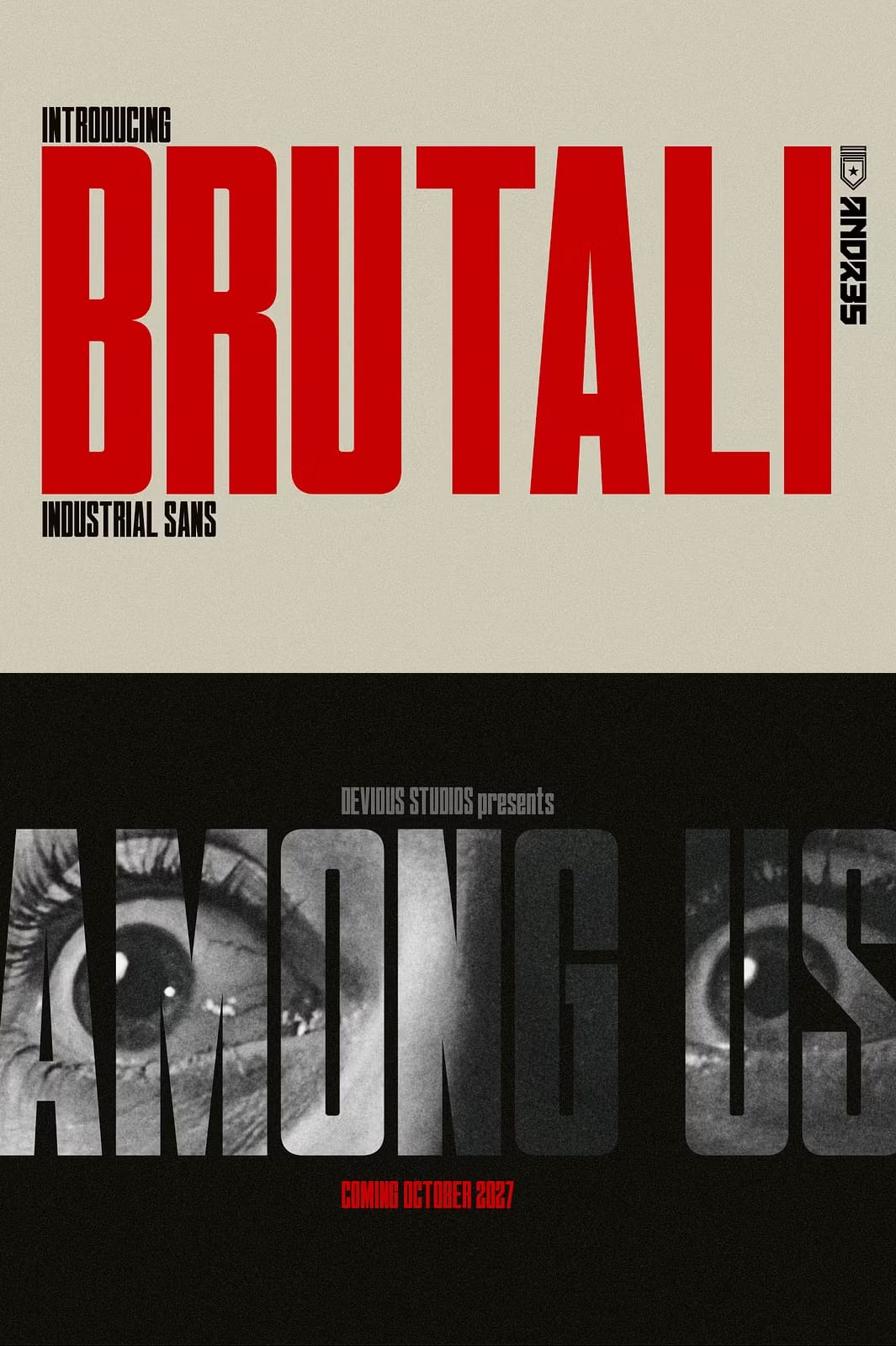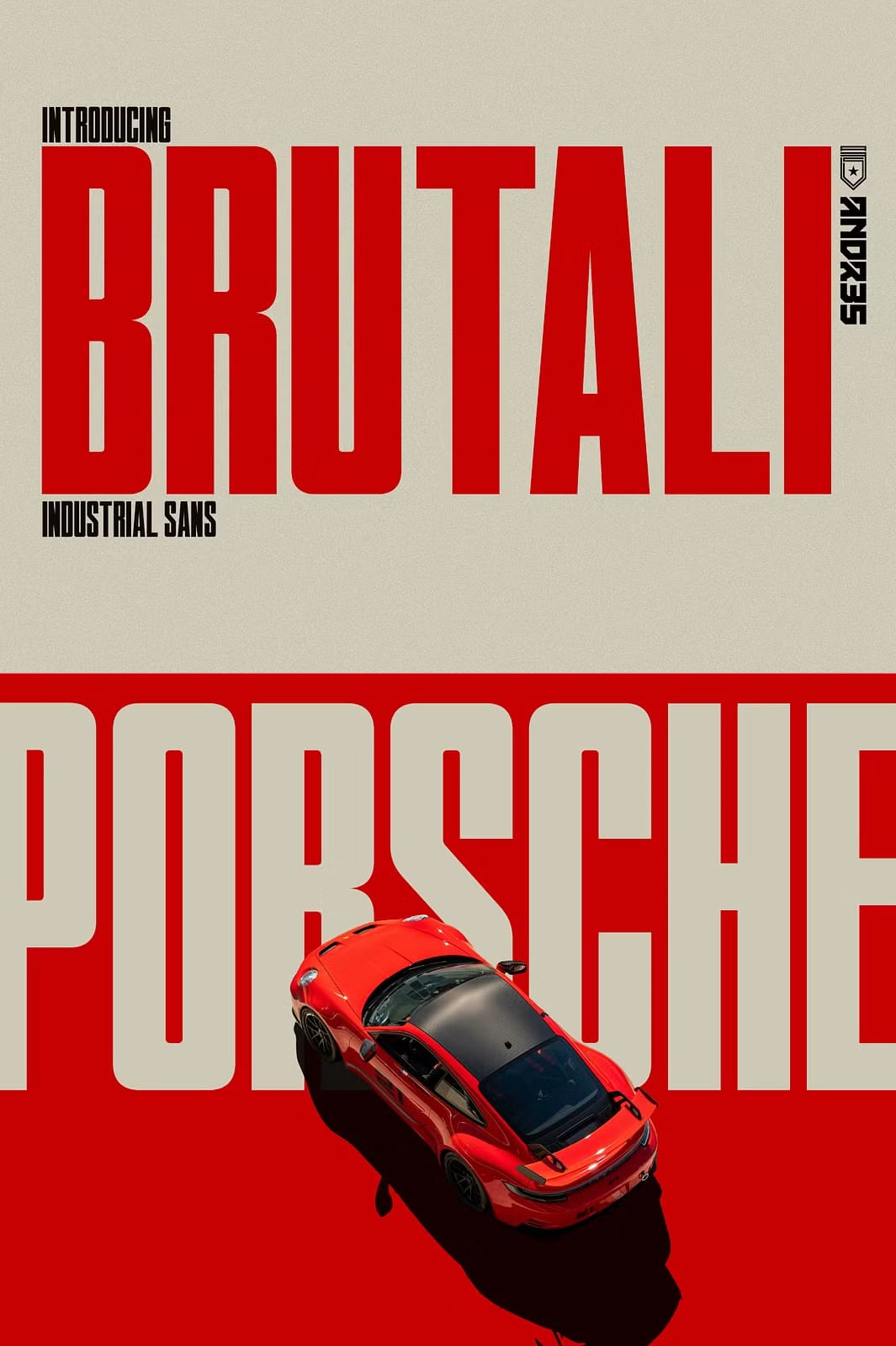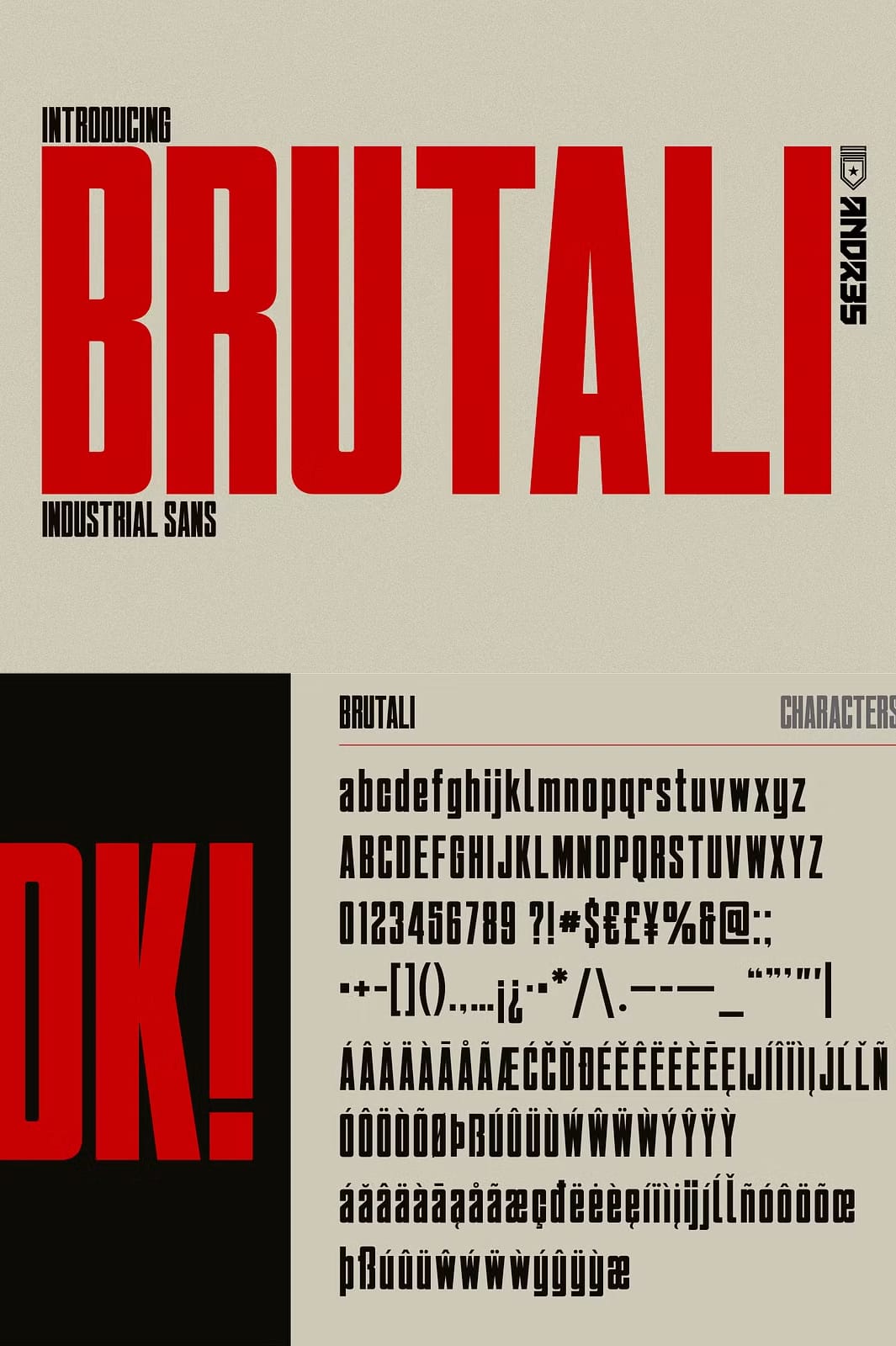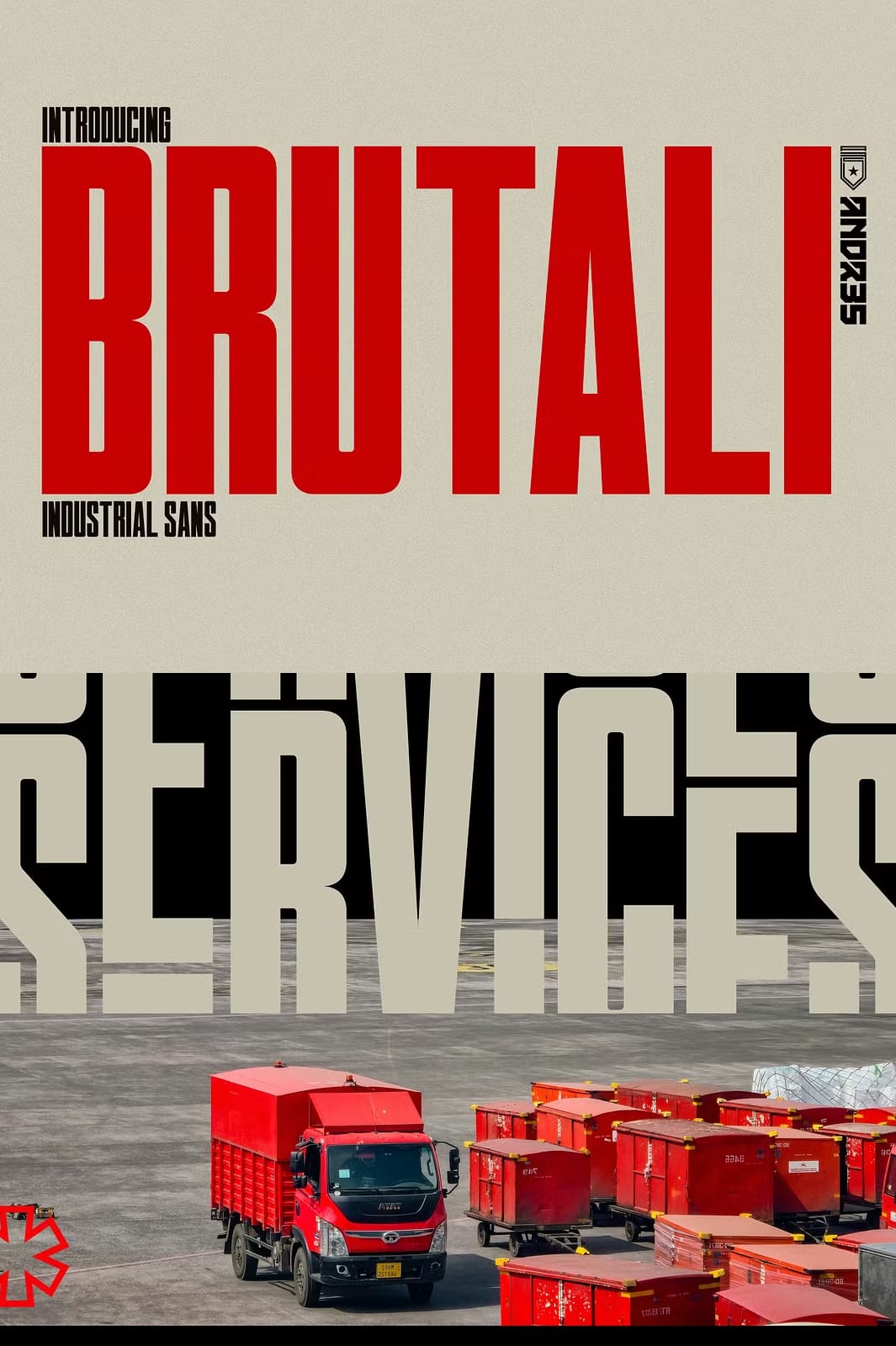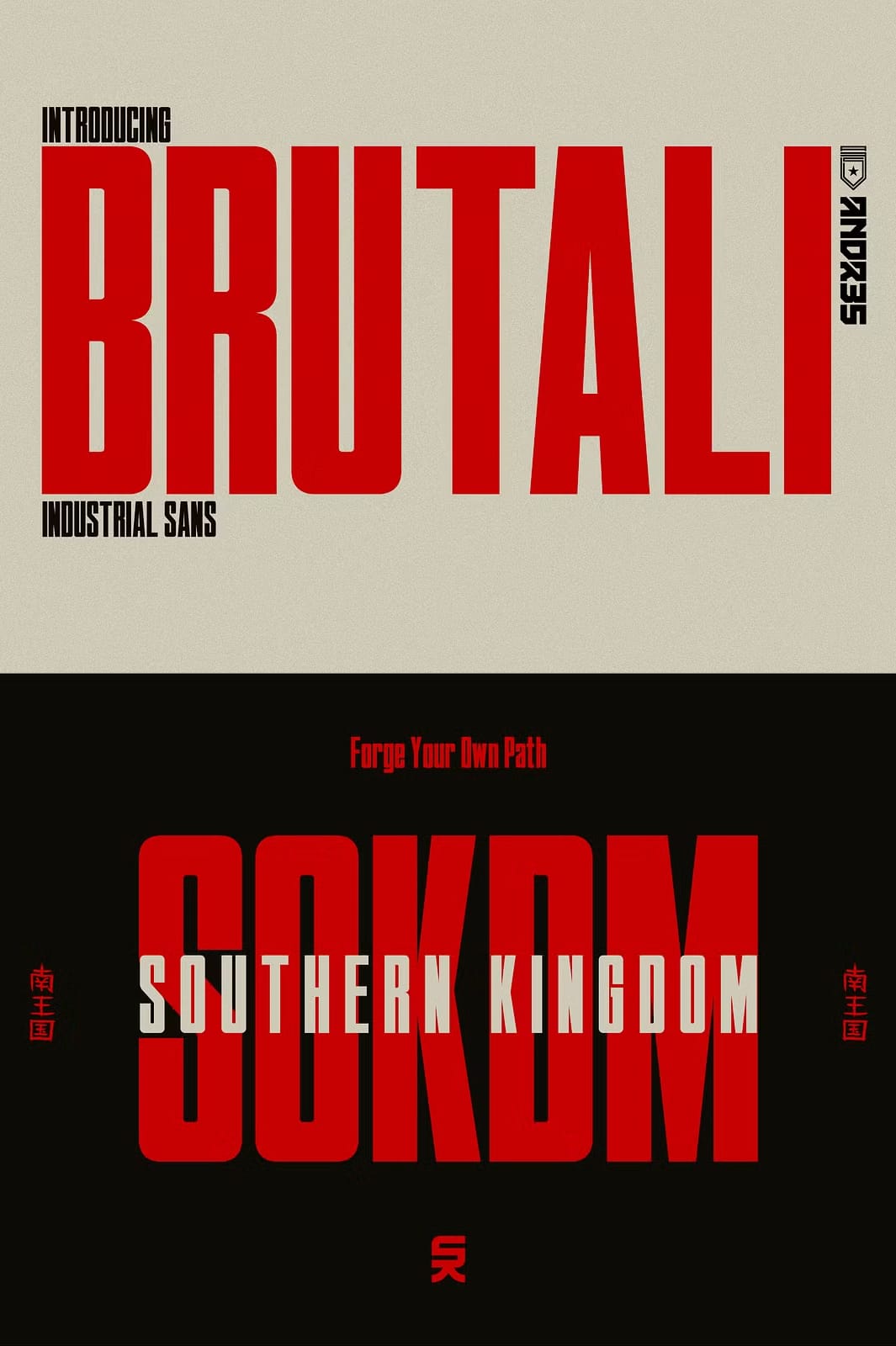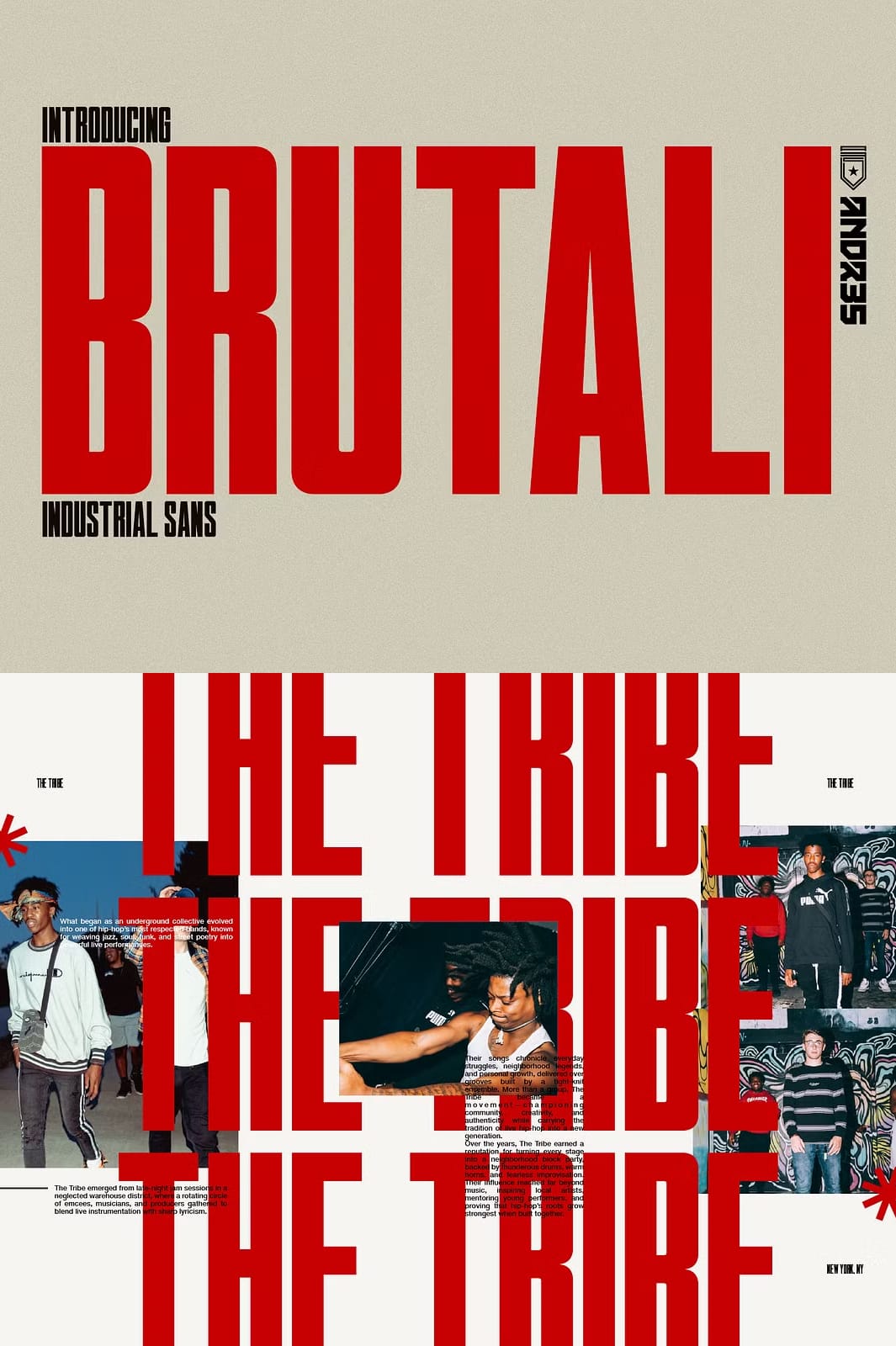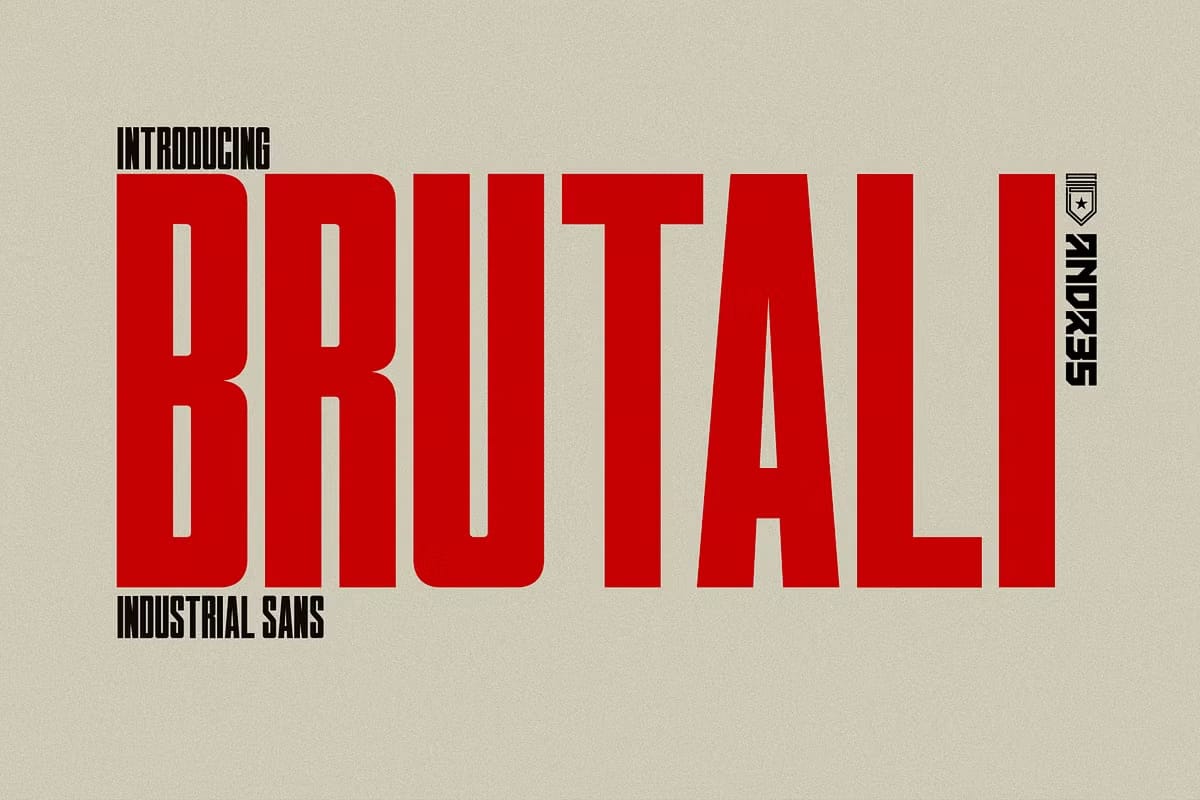
Make a massive statement with Brutali, a raw, unapologetic take on the classic Brutalist-inspired display typeface. Designed for high-impact visual communication, Brutali is all about that ultra-tall, condensed cinematic vibe that instantly commands a room.
Inspiration for this typeface crawled out of mid-century propaganda art, raw industrial architecture, editorial headlines, and vintage protest posters. If you need your text to feel heavy, structured, and impossible to ignore, Brutali delivers.
- Brutali Slanted (Italic): A dynamic, forward-leaning variant designed to inject speed, urgency, and motion into your layouts.
- Full Character Set: Packed with comprehensive multi-language support, numbers, and symbols to ensure your global designs never skip a beat